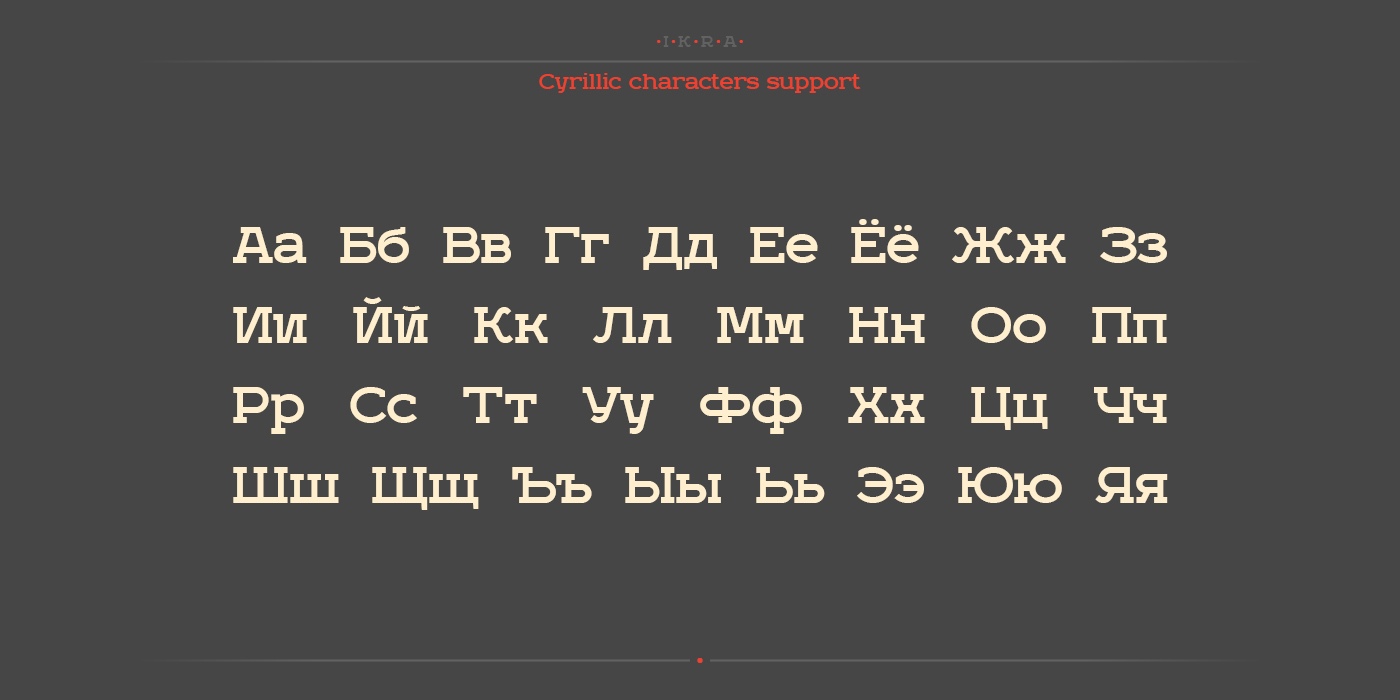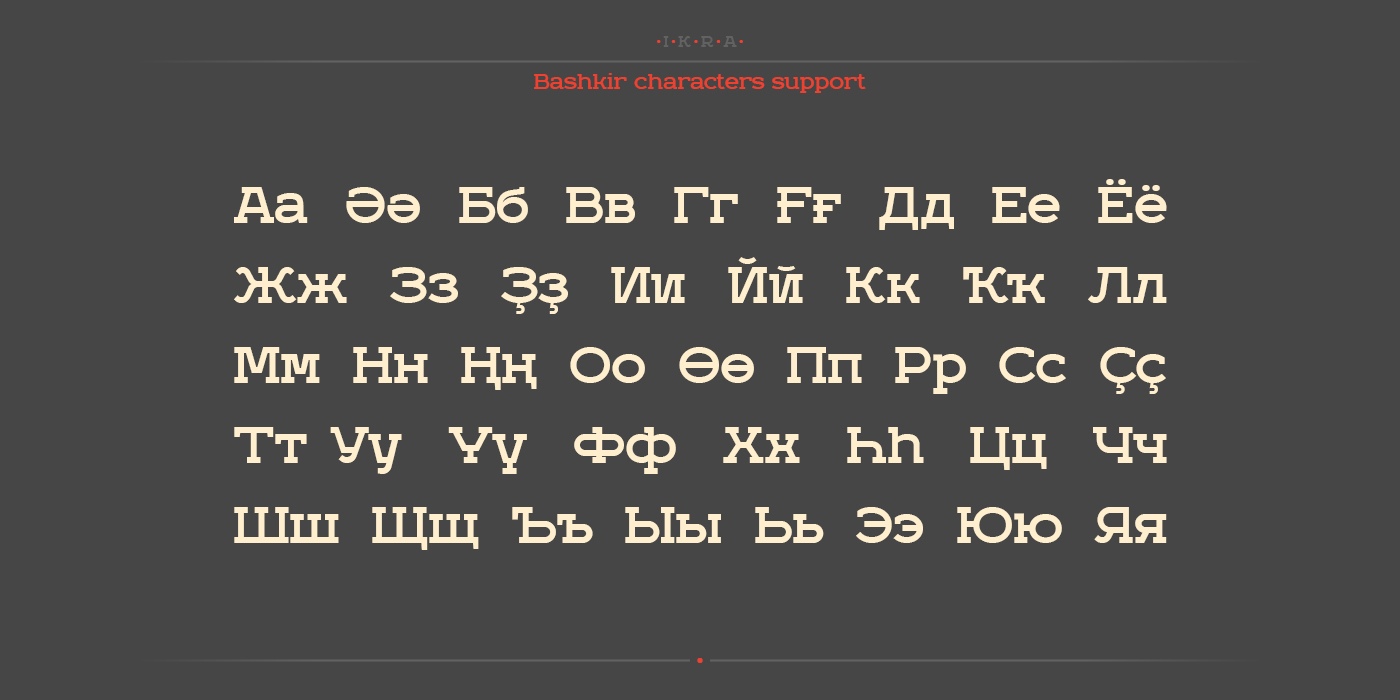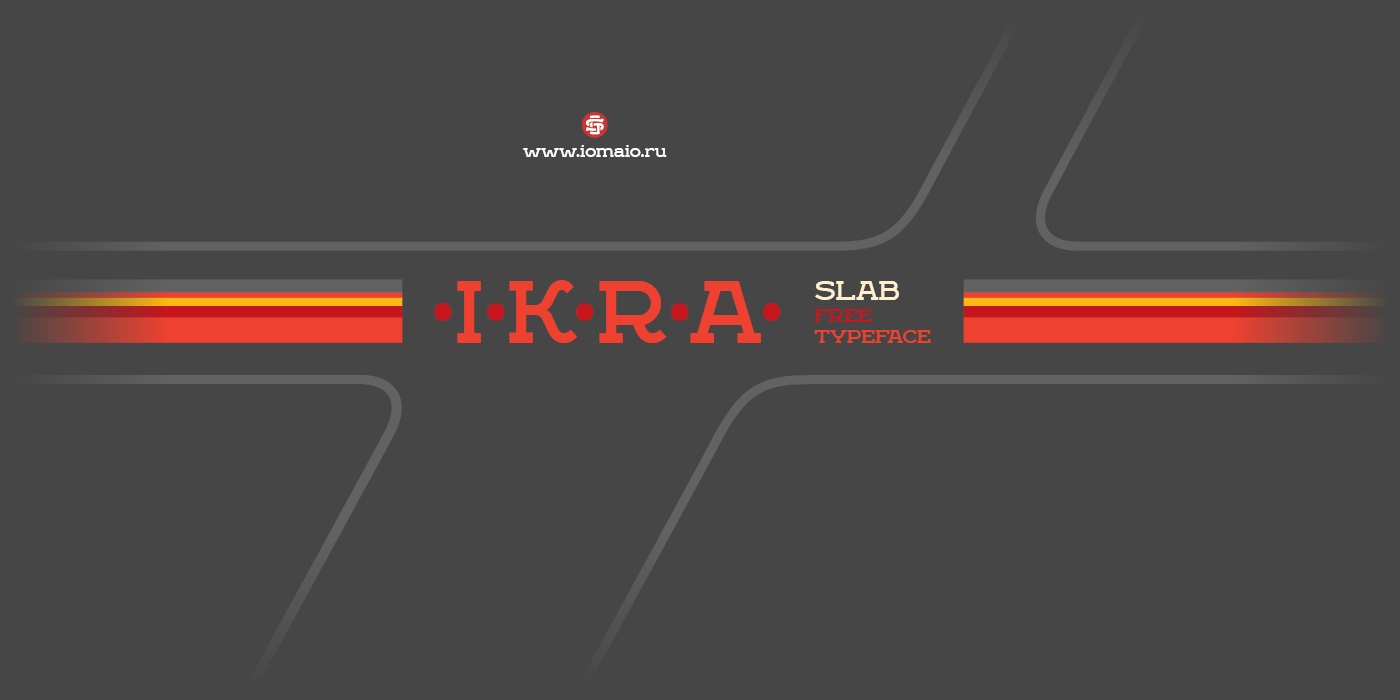
Ikra Slab Font
Ikra Slab Font is perfect for editorial design, modern magazine layouts, contemporary book typography, bold headline design, architectural firm branding, design studio communications, creative agency materials, sophisticated poster design, cultural institution signage, and professional publishing applications.
Ikra Slab Font is exciting because it masterfully combines the structural strength of slab serif design with contemporary sophistication, creating letterforms that command attention while maintaining exceptional readability and editorial elegance. Its distinctive character design bridges traditional publishing heritage with modern design sensibilities, making it perfect for brands that want to communicate authority, creativity, and the kind of editorial excellence that defines contemporary design leadership.
The Ikra Slab Font family includes Light, Regular, Medium, Bold, Black weights, corresponding Italic variations, Condensed styles, Extended versions, Editorial alternates, Slab flourishes, Contemporary ornaments, and Design elements, providing designers with comprehensive tools for creating powerful editorial typography that serves both traditional publishing and modern digital design requirements.
Ikra Slab Font Free Download delivers contemporary editorial excellence for sophisticated design applications, featuring expertly crafted letterforms that honor the tradition of quality typography while embracing cutting-edge design innovation. This versatile typeface combines editorial authority with creative flexibility, creating the perfect solution for design agencies, publishing houses, and cultural organizations that require typography as sophisticated as their creative vision.
Whether you're developing design agency identities, creating editorial publications, designing cultural materials, or producing contemporary brand communications, Ikra Slab Font provides the authoritative foundation needed for credible creative positioning. Its editorial character makes it particularly effective for architectural firms, design studios, publishing companies, and cultural institutions that serve sophisticated audiences who appreciate quality design and editorial excellence.
Perfect for editorial designers, creative directors, publishing professionals, and brand strategists working with design-conscious organizations, this font offers the sophisticated qualities essential for successful creative market positioning. The typeface's versatile nature ensures consistent performance across both traditional print publications and contemporary digital design platforms.
Ikra Slab Font includes comprehensive editorial character sets, design-focused typography features, and professionally optimized spacing that guarantees superior performance in sophisticated design applications. Its contemporary approach to slab serif typography makes it indispensable for organizations requiring editorial authority and creative distinction. Elevate editorial design with Ikra Slab Font Free Download and create typography that truly defines contemporary publishing excellence.